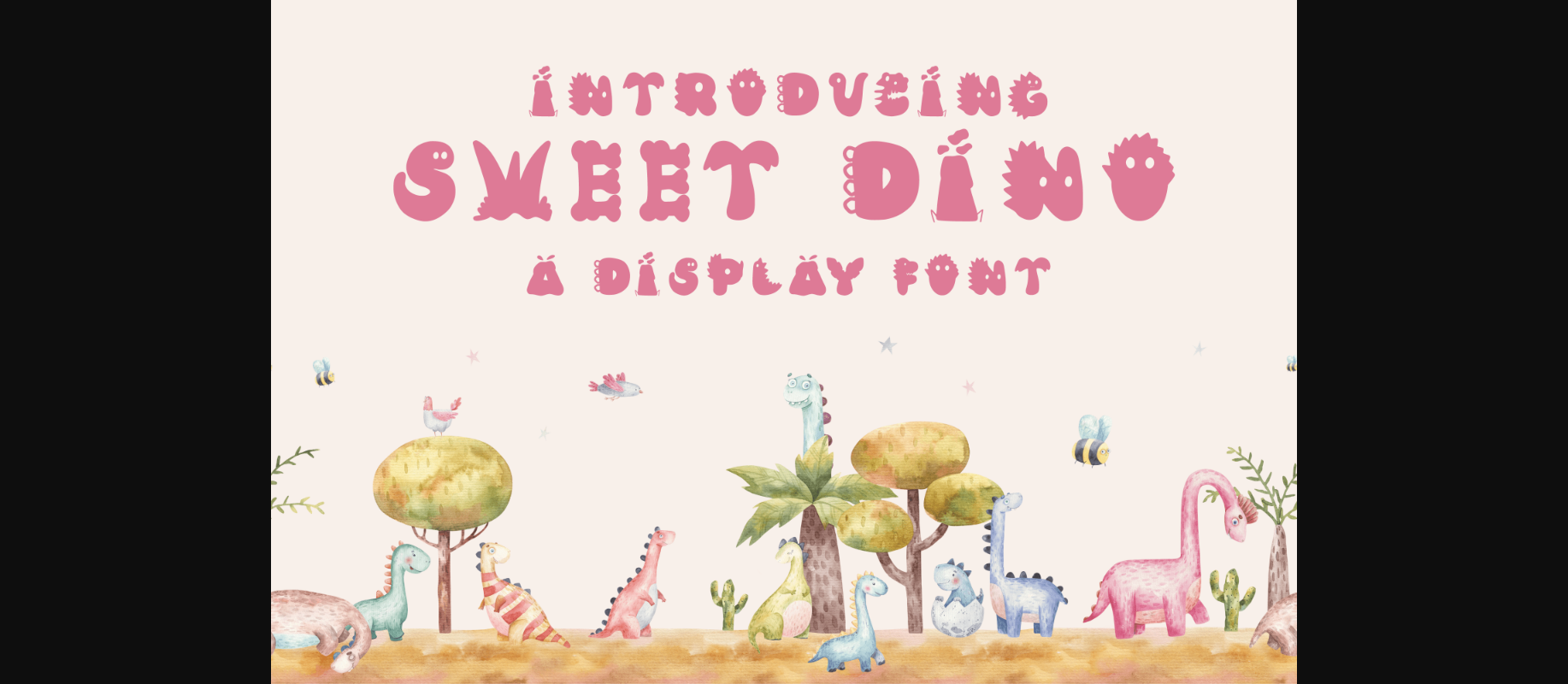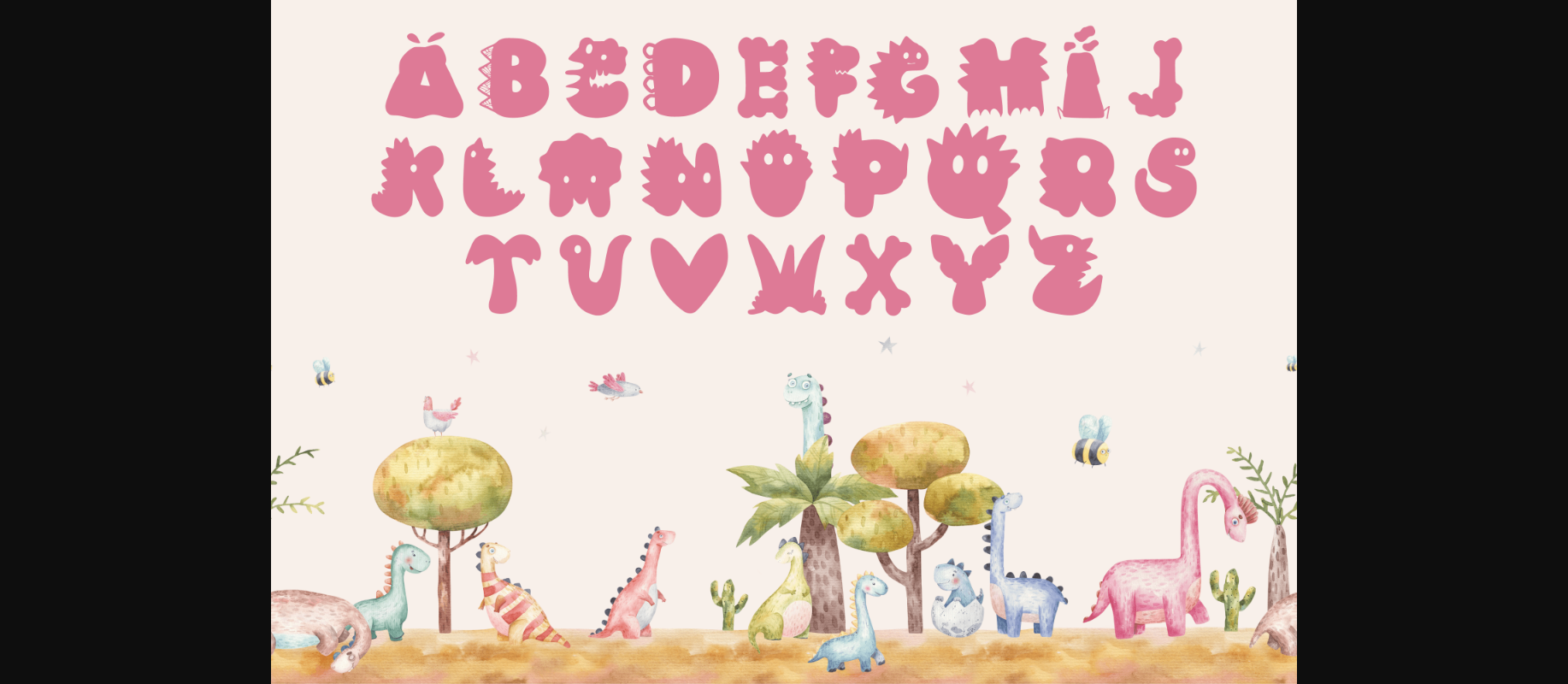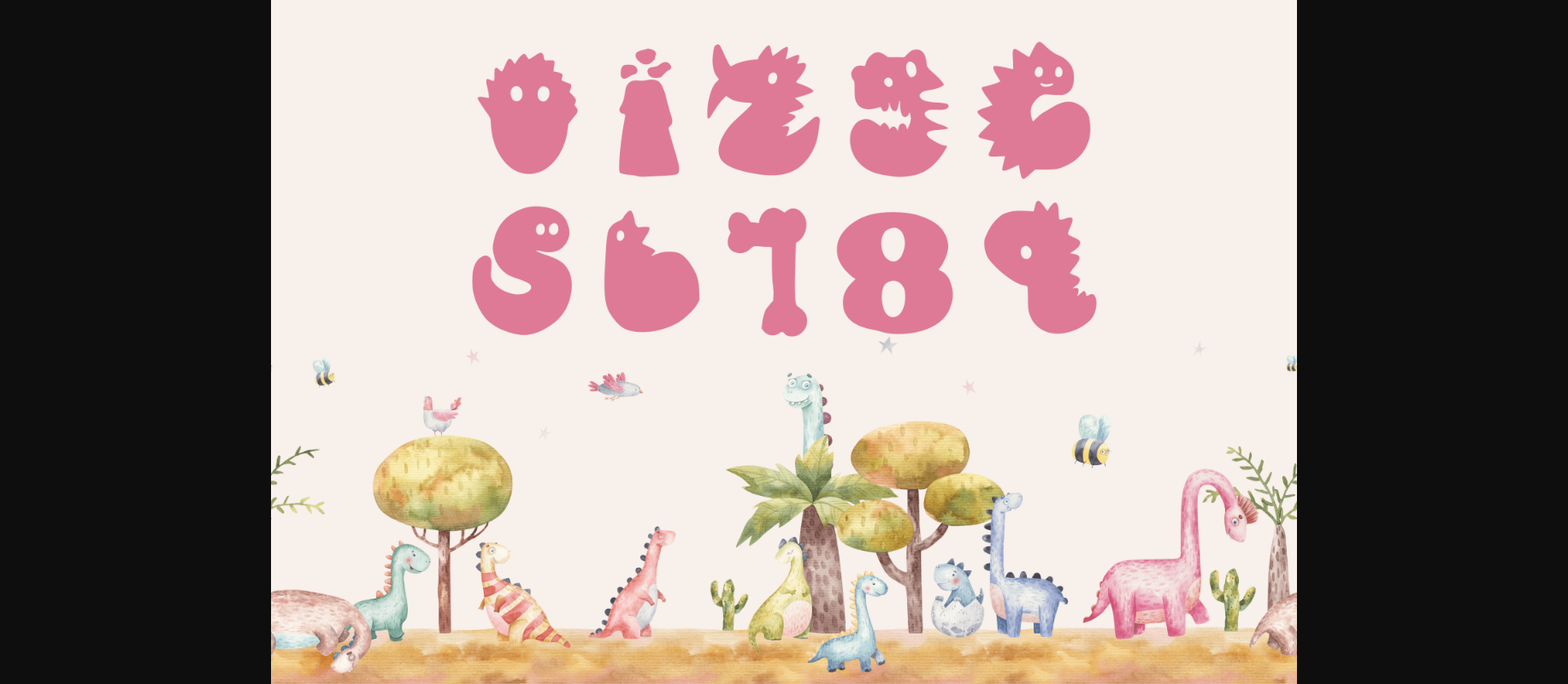
Sweet Dino Font
About Sweet Dino Font
Sweet Dino is a cute and fun decorative font. It embodies playfulness and authenticity and is the perfect choice for various projects, such as blog posts, logos, branding, ads, invitations, greeting cards, planners, photo albums, decorations, and much more.